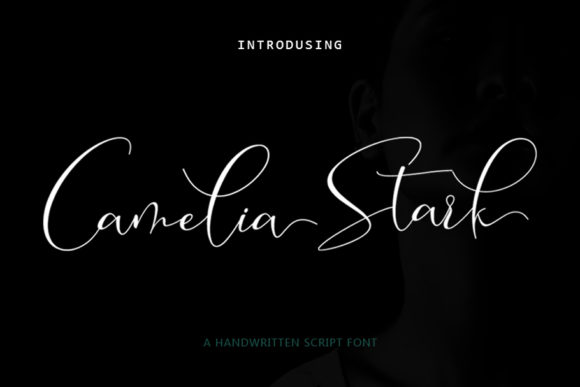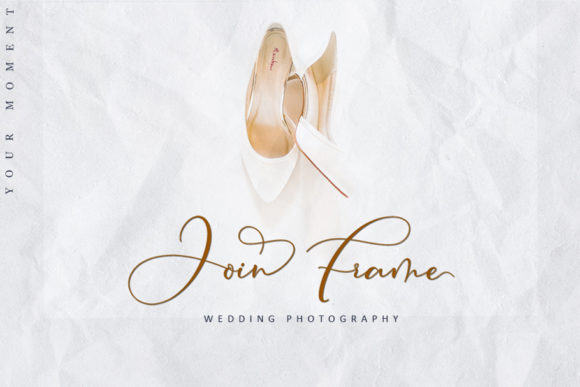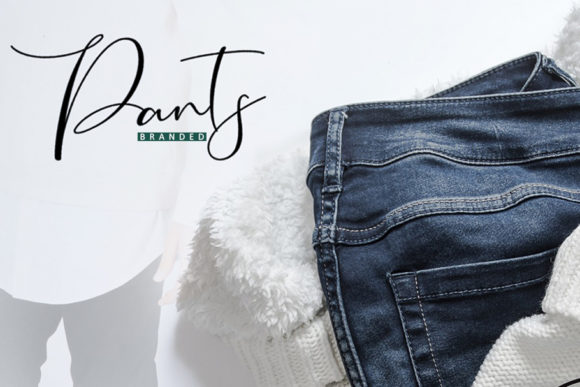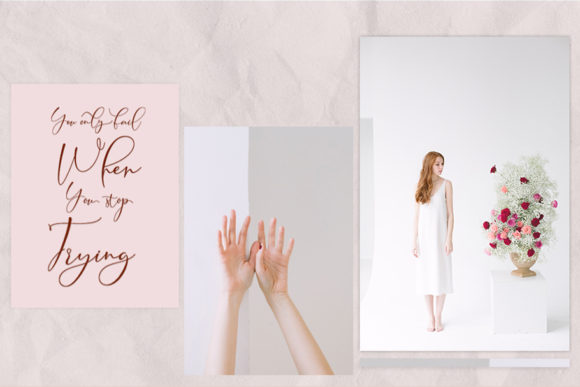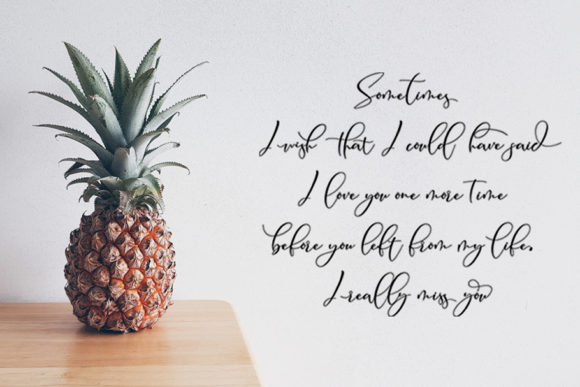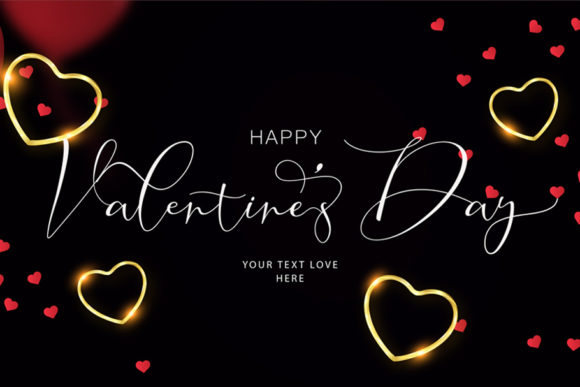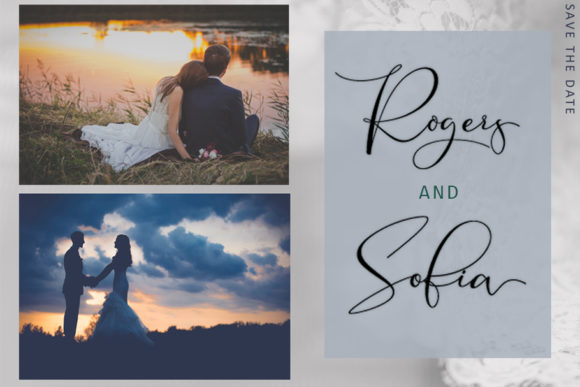
Camelia Stark Font
About Camelia Stark Font
Camelia Stark is a gorgeously light and fun script that will take any design project to the next level. Fall in love with its modern feel!